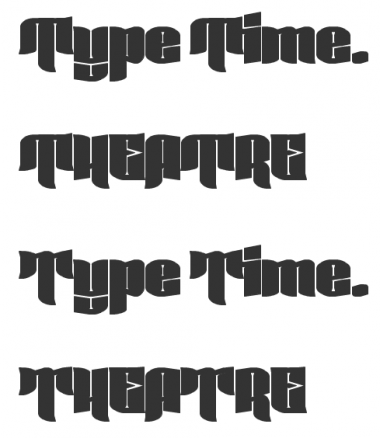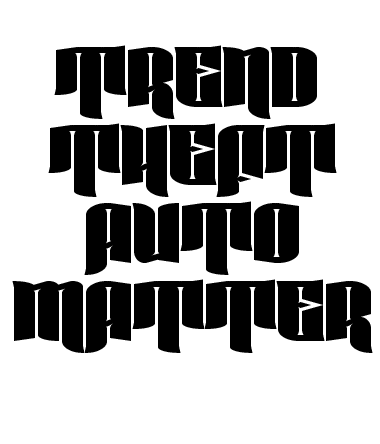
Wauw! The use of composites here... Amazing! And I think you just 'structed the most perfect cedilla ever made in FontStruct. 10/10 + fave
2x is so much closer to my original vision of Djangogh. Of course, I played up the insane use of fs 1.0 bricks on that one for crazy style. Composites allow for a much slicker, smoother, and ultimately more dynamic and pleasing result.
That cedilla took more than a few cycles to wrap my brain around – glad you dig it! @:^)
Incredible. Well-designed and contemporary. It's even better than the original! Yes, the cedillia is excellent.
I was waiting for this... must have been months. Absolutely wonderful. I love the little... what can they be, ink traps? At the corner of every interior curve, you know. Anyway, brilliant work. 10/10 and fave.
...As well it should be.
O.o My eyes are falling out of my head! There is no possible way to describe this!
I dont know what to say... Incredible! I love the amount of detail that went into this.
Lovely stuff. Raising the bar once again. The 'T' disturbs me though. Not that it's much better but have you tried it like this:-
Two more, and a better screen capture.
Good points, Nippa, and some very clever alternates. Thanks!
I just got back to my internet connection, so let me peruse these and try out some variations. Honestly, I tried only one previous T before publishing. I did not address the issue of rhythm as cunningly as your first very calligraphic suggestion – which some how manages to look less like an M while actually looking more like the M (love the extended ink trap you added to your second take on that idea) – but I did notice the problem and lamely attempted to address the same using an inverted W motif. I quickly discarded it and settled for the more sturdy and legible design.
A secondary problem with shrinking the gigantic beaks on the three-stroke wide original, it unbalances the massive color of this very fat face. It is an extreme solution, yes, but I find myself attracted to the distinctiveness of that feature, even if it is a wee bit dorky. Words containing multiple, and especially consecutive, Ts only increase the issue. I will investigate a compromise between the two that keeps the sideways flourish; for that I will need to tinker with the outlines. :)
The horizontally compact forms are delightful and are making me salivate to think about adding Greek and Cyrillics, as in the source material 2x was cloned from. I figured a two-stroke wide construction might help with all caps setting, and you ably demonstrated this.
Thank you, my friend, for the inspiration and the laser-focused critique! Your expertise and high standards of quality in typographic creation raise the bar for all of us.
@xenophilius: Thanks for waiting patiently for this fs 2.0 version. It did take me months to hone in on my approach, especially all the ink traps you mention. :)
@laynecom: Thank you, I think it is the details that glue it all together.
@djnippa: Thank you again, friend, as I continue to investigate possibilities for the T and refine a few niggling details. In the days to come, I will get around to adding all the alternates you suggested, because they are just so cool and creative! :)
I stand by what I said earlier--this is excellent. But I like Mr. Downey's suggestion better--the second suggestion. Without it, this is still brilliant, but it's the details that count. I commend you, good sir, and hope you will keep up the good fonts! I hope you don't get into another debilitating car crash (remember the original Djangoh? The concussion?)
That is singularly the most beautiful "&" I have ever seen on FontStruct.
These three Ts are my top contenders for alternates, currently. @djnippa’s input remains invaluable in refining these selections. A variation of his second suggestion occupies the main T unicode slot, the † (option+t) holds my modified original, and the ¬ (option+l) holds a unicase two-stroker. What do you think, FSers? :)
I know I'm arriving late to this party, but… this is just CRAZY good. I am a bit confounded by the breaks in the descenders on g and y… but, when someone hands you the keys to a souped-up hot rod like this, it's stupid to complain about the color. Masterful work.